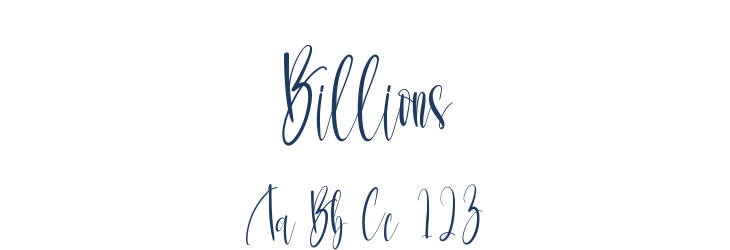
Billion Stars Personal Use Font
An elegant and intricate script font with flowing, cursive letterforms.
Billionaire Medium Grunge Font
A medium-weight, grunge-style font with a textured, geometric design.
Billionaire Font
A bold blackletter font with dramatic, angular strokes and a modern twist.
Billion Miracles personal use Font
A delicate, flowing script font with a modern, handwritten style.
Billion Calligraphy - Personal Use Font
An elegant calligraphy font with flowing, interconnected letters and ornate flourishes.
Billionthine Personal Use Only Font
A dynamic and elegant script font with bold, flowing letterforms.
Billion Dollars Demo Font
A playful handwritten font with elegant, slender uppercase and rounded lowercase letters.
BillionReachDEMO Font
A modern, handwritten font with fluid, elegant strokes.
BillionMillionIWish Font
A playful, handwritten font with a modern, whimsical style.
BillionDreams Font
A bold, cursive font with smooth, flowing lines and interconnected characters.
Billion Font
A graceful and flowing script font with elegant, fluid letterforms.
High Billion Font
A dynamic, expressive handwritten font with fluid, irregular strokes.
High Billion 2 Italic Font
A dynamic, handwritten cursive font with elongated, slanted letters and varied stroke thickness.
Billionary Font
A bold, geometric font with strong, uniform strokes and modern appeal.
The Billion Font